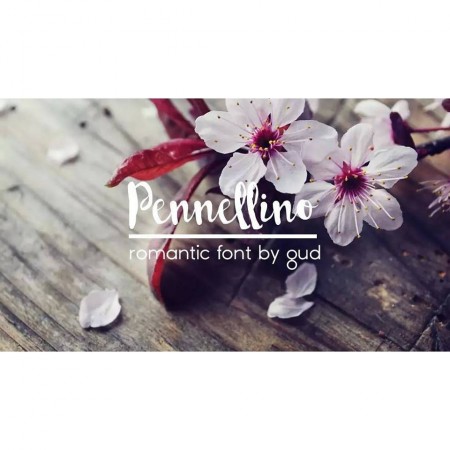
HomeScript FontsPennellino Font Script Fonts Pennellino Font FacebookXPinterestWhatsApp About Pennellino Font Are you ready for the perfect ligatures? Pennellino is the brush typeface you needed. DOWNLOAD NOW People also explored The Diplomat Signature Font Romtthing Girl Font Toploftily Font South Roman Font Audrena Font Royanne Monogram Font Galantic Font Blackbox Font Darlington Font 420 0 TagsPennellino Font Previous articleScrivimi FontNext articleChloe Font LEAVE A REPLY Cancel reply Comment: Please enter your comment! Name:* Please enter your name here Email:* You have entered an incorrect email address! Please enter your email address here Website: Save my name, email, and website in this browser for the next time I comment. Personal Use Free Underwood Champion Personal Use Free Read more about this font Denisha Personal Use Free Read more about this font Gaboed Personal Use Free Read more about this font Ernesthuge Personal Use Free Read more about this font BLOG Top 10 Handwritten Fonts That Elevate Your Designs Top 10 Handwritten Fonts That Will Elevate Your Designs Handwritten fonts bring a warm, personal touch to every creative project. Whether you're designing logos, invitations,... Best Fonts for T-Shirt Design – Top 2025 Picks How to Cut Any Font on Cricut: Convert a Font to SVG (Free) Exploring Font Trends